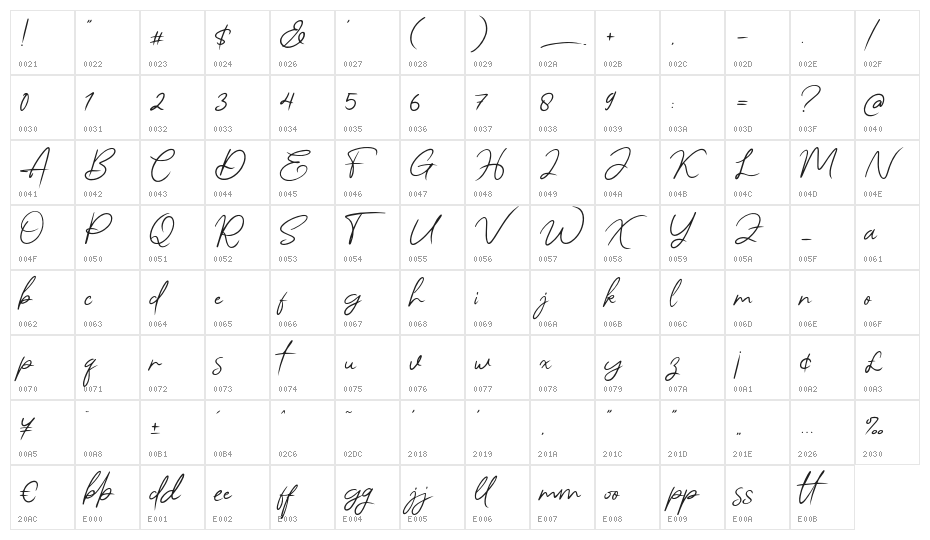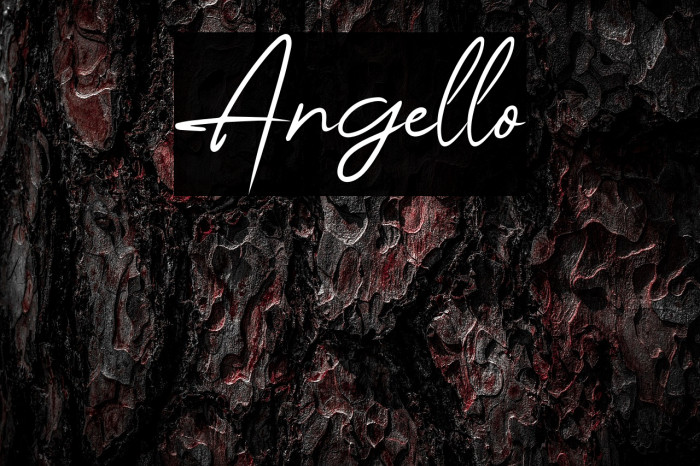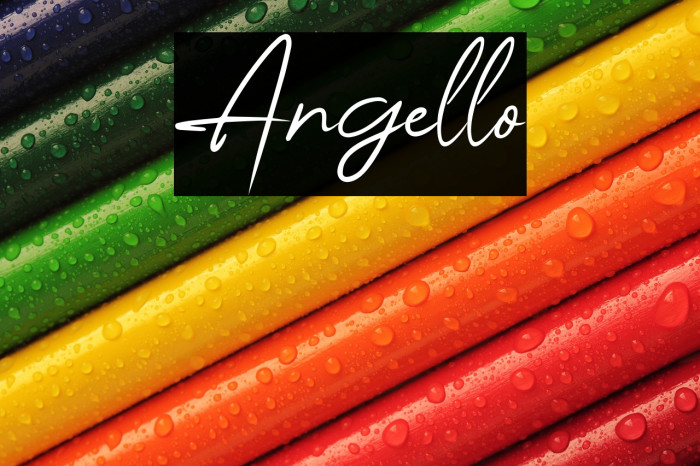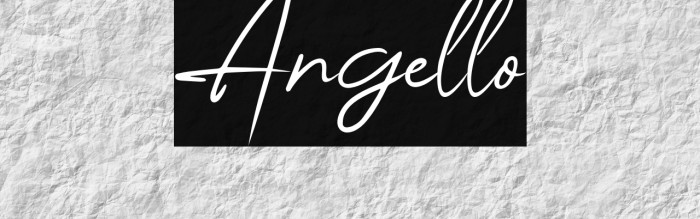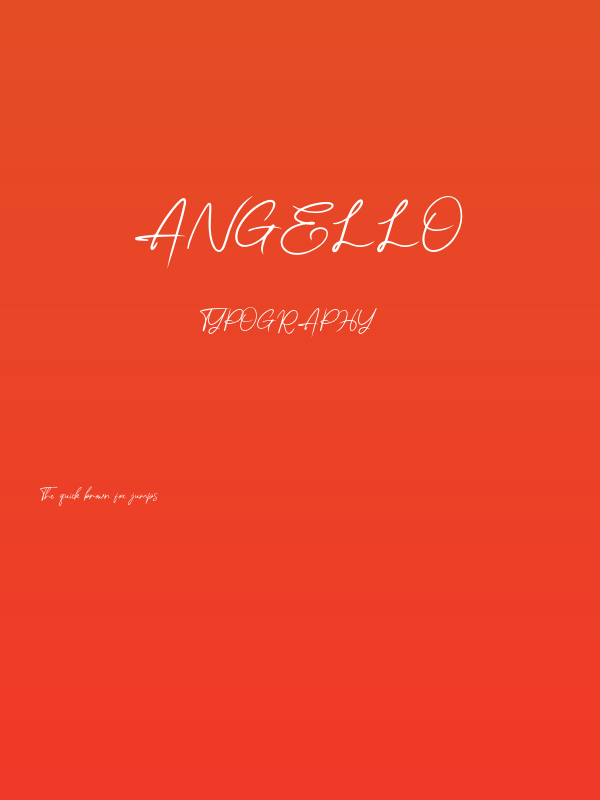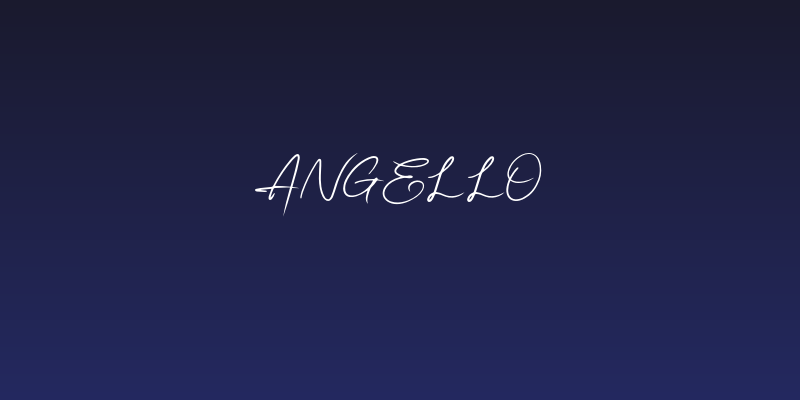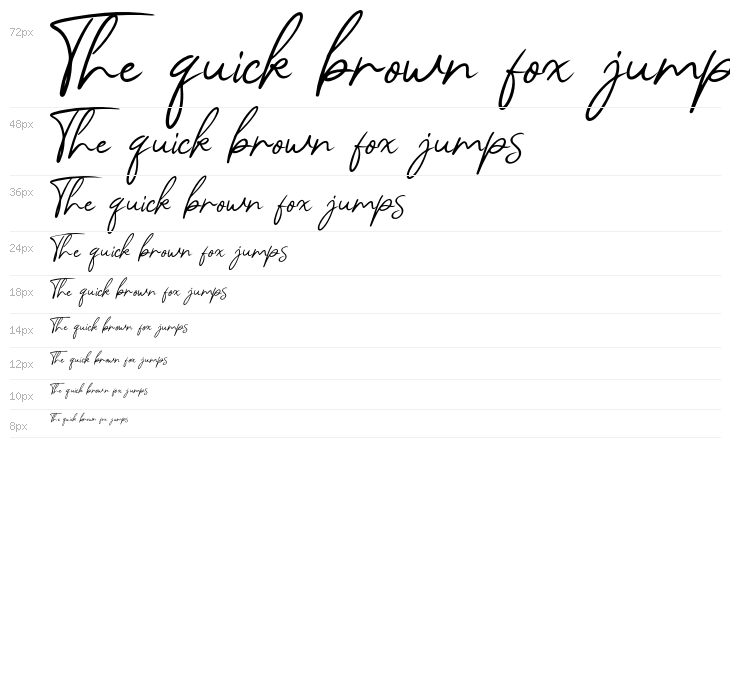
Angello Font
Angello Description
This elegant script font features fluid, connected strokes that mimic the natural flow of handwriting. The uppercase letters are tall and graceful, with sweeping curves and loops that add a touch of sophistication. The lowercase letters maintain a consistent style, with smooth transitions and a slightly slanted orientation, enhancing the handwritten feel. Numbers and special characters are designed to complement the overall aesthetic, maintaining the same flowing style. This font exudes a sense of elegance and personal touch, making it ideal for projects that require a humanistic and artistic flair.
| Overall Style | Elegant, Handwritten |
| Use Case | Logos, Invitations, Artistic projects |
| Proposed Projects | Ideal for wedding invitations, personal branding, greeting cards, and artistic projects. |